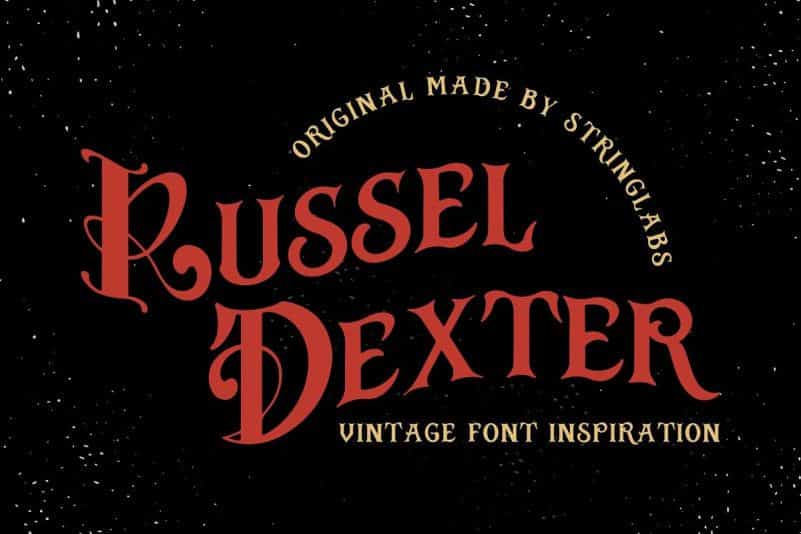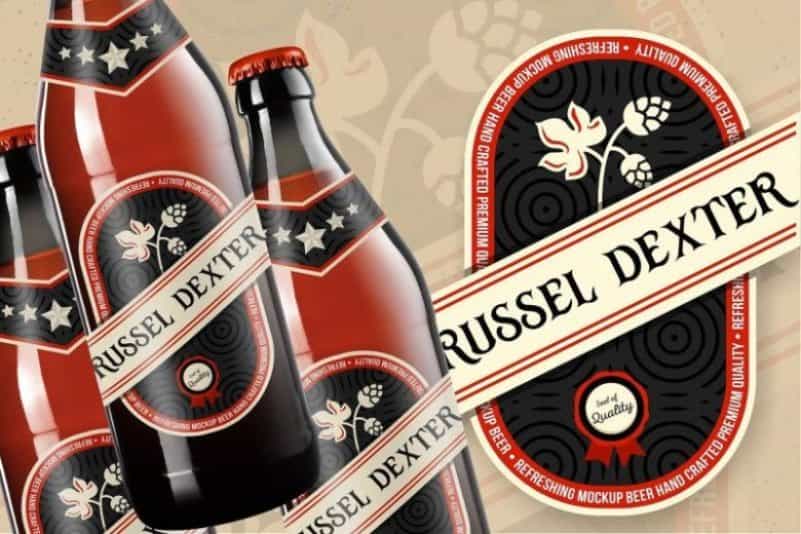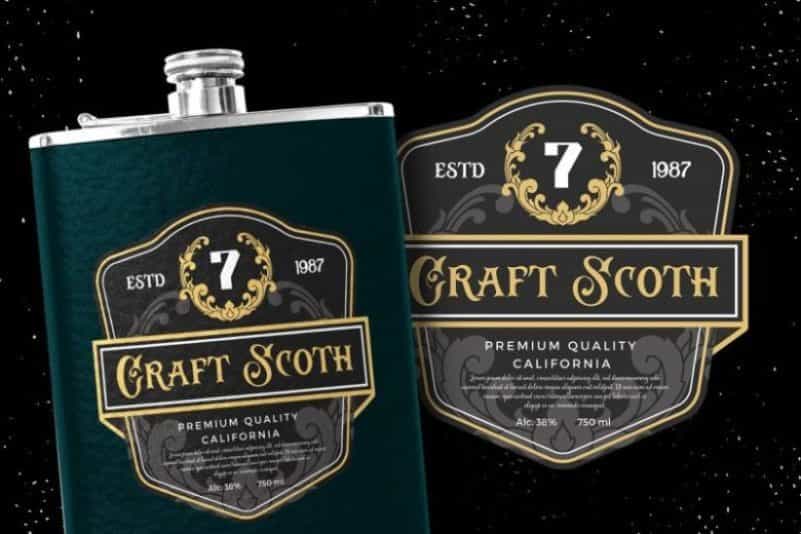
Russel Dexter is a Retro display font with vintage style. This font has a peculiar design taste and also is in line with the classic retro style. Russel Dexter is perfect for decorative lovers, besides this font is also perfect if used for brands such as: Barbershop, Motorcycle Club, Clothing, Coffee Shop, Shoe Brands and Vapor Shop are just some of the examples. This Font Template is a blend of Class, Elegance, Creativity and Coolness with the Uniqueness.